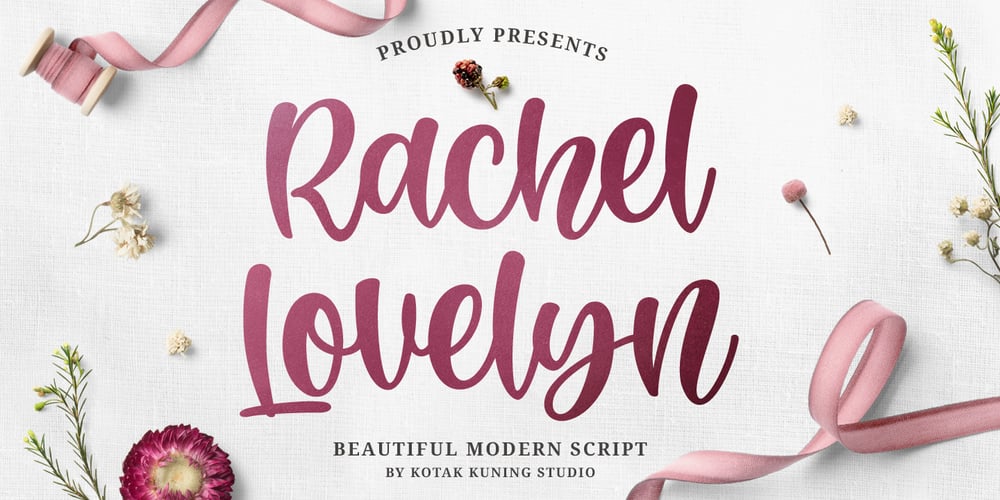
Rachel Lovelyn Font Family was designed by Arif Dwi and published by Kotak Kuning Studio. Rachel Lovelyn contains 1 styles and family package options. Rachel Lovelyn is a lovely bouncy script font with a natural & stylish flow. Perfect for making elegant stylish statements – or adding a touch of class to your designs. This script has a multitude of lovely alternates character in its OpenType features – making the font look a beautifulRachel Lovelyn is perfect for many different projects such as logos & branding, invitation, stationery, wedding designs, social media posts, advertisements, product packaging, product designs, label, photography, watermark, special events or anything.I highly recommend using a program that supports OpenType features and Glyphs panels such as Adobe Illustrator, Adobe Photoshop CC, Adobe InDesign, or CorelDraw, so you can see and access all Glyph variations.Rachel Lovelyn is encoded with Unicode PUA, which allows full access to all additional characters without having special design software. Mac users can use Font Book, and Windows users can use Character Map to view and copy one of the extra characters to paste into your favorite text editor/application.We hope you enjoy the font, please feel free to comment if you have any thoughts or feedback. Or simply email me at kotakkuningstudio@gmail.com. Thanks for purchasing and have fun!